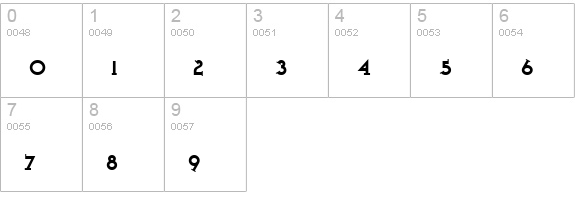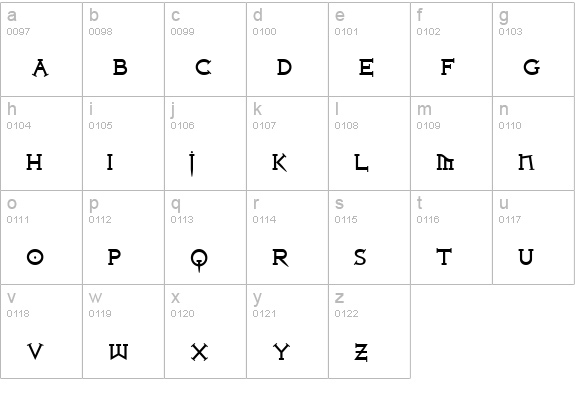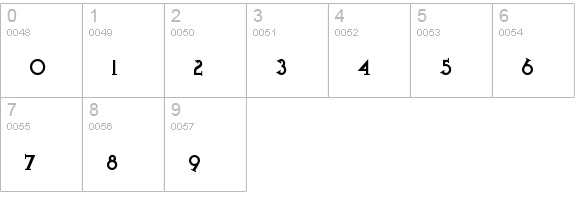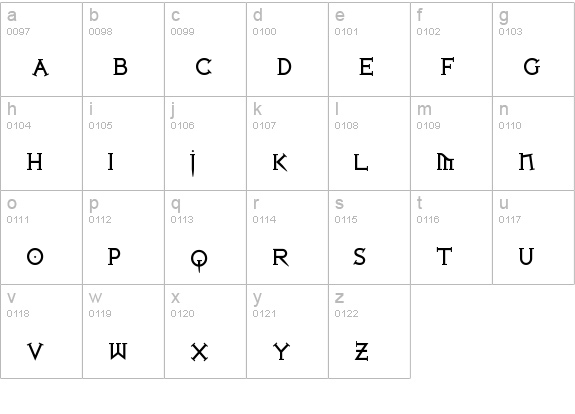
Iron League smallcaps Bold is a strong, high-contrast variant in the Iron typeface family \xE2\x80\x94 well suited to headlines, attention-grabbing titles, and strong calls-to-action.
Introducing Iron League Smallcaps Bold font - a striking and powerful typeface that exudes confidence and strength. With its bold and commanding presence, this font is perfect for conveying a sense of authority and determination in any design project. The Iron League Smallcaps Bold font features a unique combination of sharp edges and sleek curves, creating a visually captivating aesthetic that demands attention. Its small caps style adds an extra touch of sophistication and elegance, making it ideal for headlines, logos, posters, and other design elements that require a touch of refinement. But what sets Iron League Smallcaps Bold font apart is not just its impressive design, but also its availability - it is completely free to download at FontsMarket.com. Yes, you read that right - this incredible font can be yours without spending a penny. Whether you're a professional designer or a hobbyist, this free font offers a fantastic opportunity to elevate your creations without breaking the bank. Don't miss out on the chance to enhance your designs with the commanding presence of Iron League Smallcaps Bold font. Download it freely at FontsMarket.com and unlock a world of possibilities for your creative endeavors.